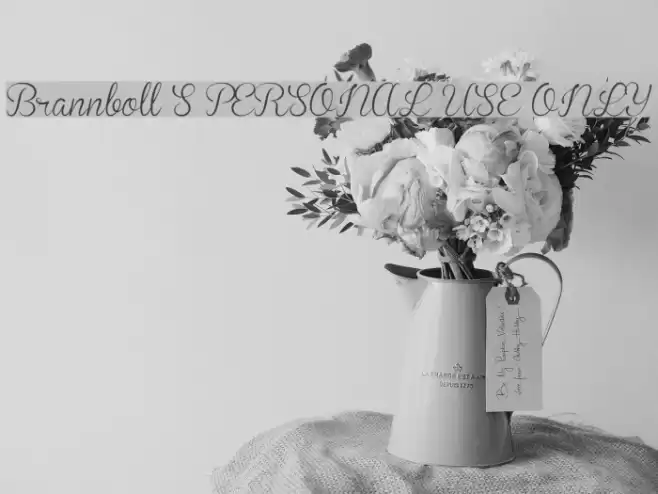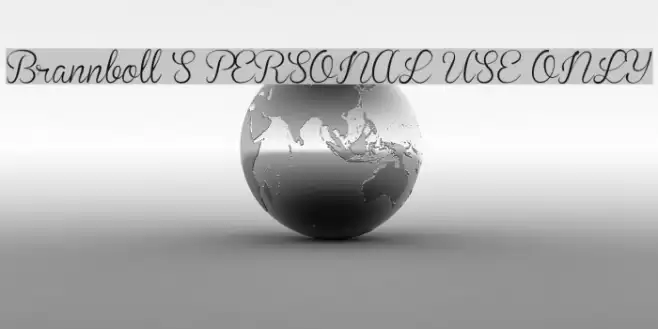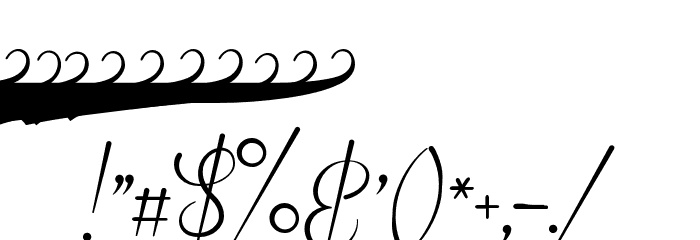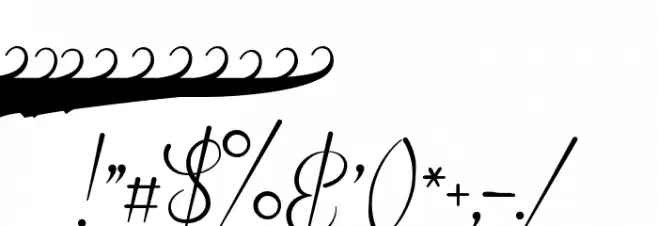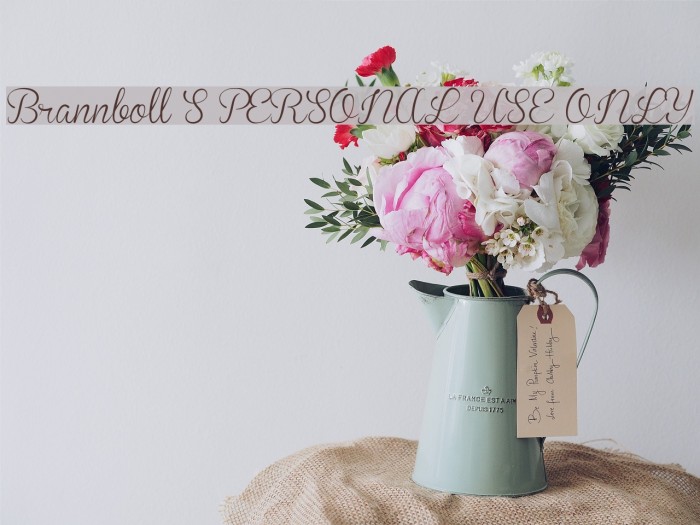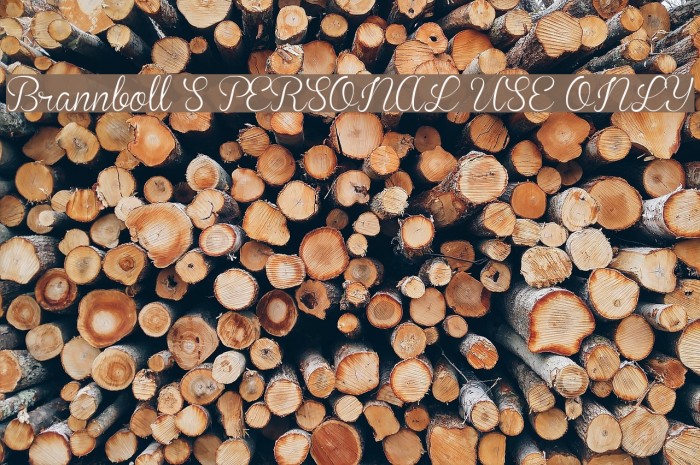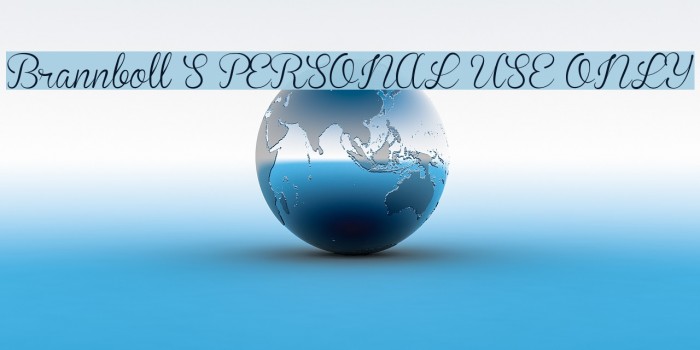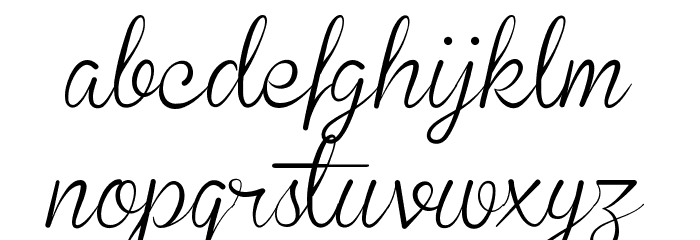
Brannboll S PERSONAL USE ONLY Font
Brannboll S PERSONAL USE ONLY Description
This font features a flowing, cursive style with elegant loops and swashes, giving it a handwritten appearance. The uppercase letters are characterized by their sweeping curves and decorative flourishes, while the lowercase letters maintain a consistent, smooth flow. The numerals and special characters complement the overall script style, adding to its cohesive look. The font's design is reminiscent of traditional calligraphy, making it suitable for projects that require a personal, artistic touch.
A cursive, handwritten-style font with elegant loops and swashes from Uncategorized fonts.
- Proposed Projects: Ideal for wedding invitations, greeting cards, logos, and branding materials that require a personal and artistic touch.
- Use Case: Logos, Invitations, Greeting Cards